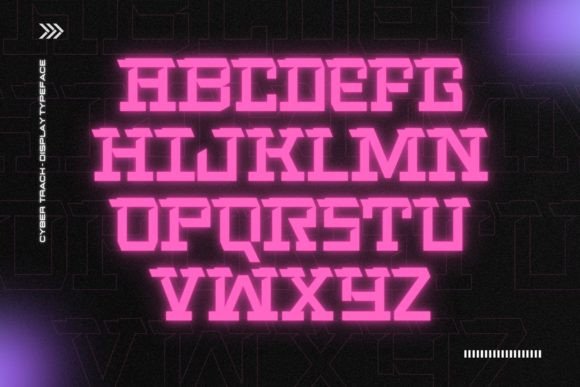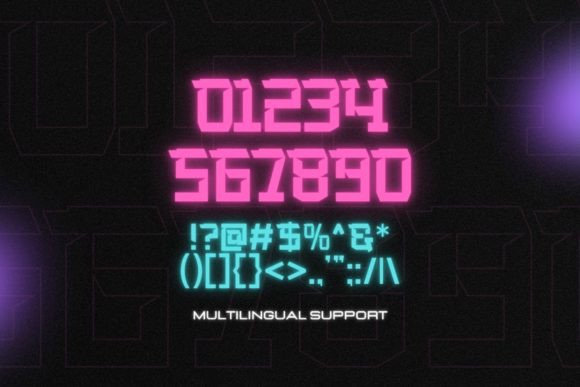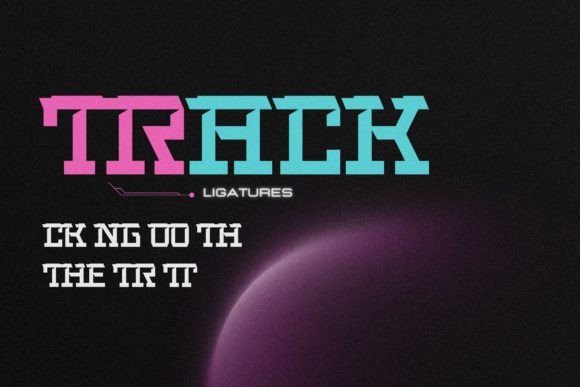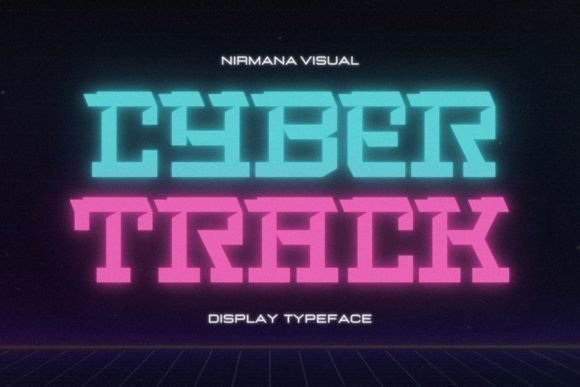
Introduction to Cyber Track Font
Cyber Track – Techno Futuristic Serif Typeface suitable for titles, logos, typography, clothes, magazines, brochures, packaging, and much more.
It will make your designs modern and professional .
Key Features of Cyber Track Font
Why Choose Cyber Track Font?
Cyber Track Font offers exceptional quality and versatility, making it a valuable addition to your design toolkit. Whether you’re creating for personal projects or commercial use, Cyber Track Font delivers professional results.